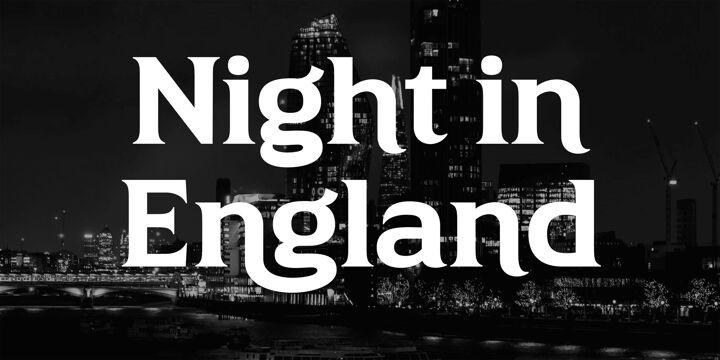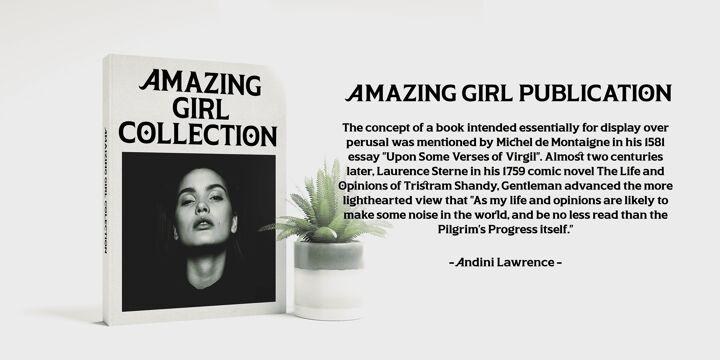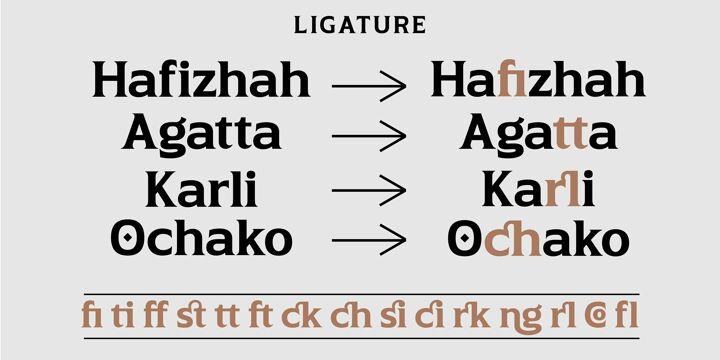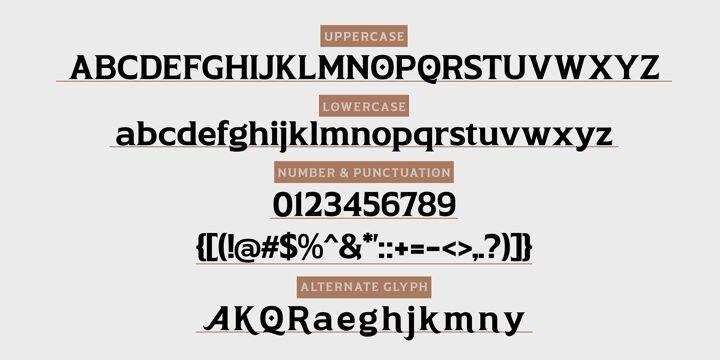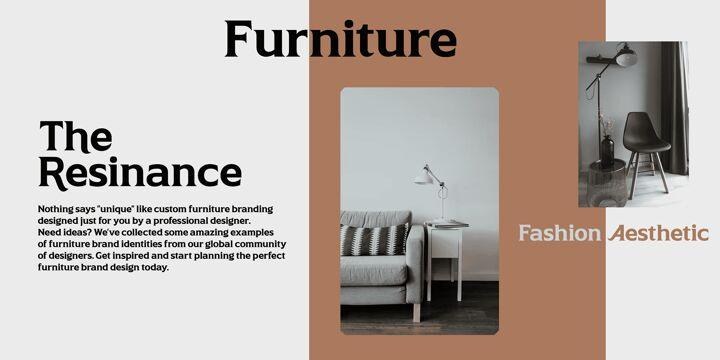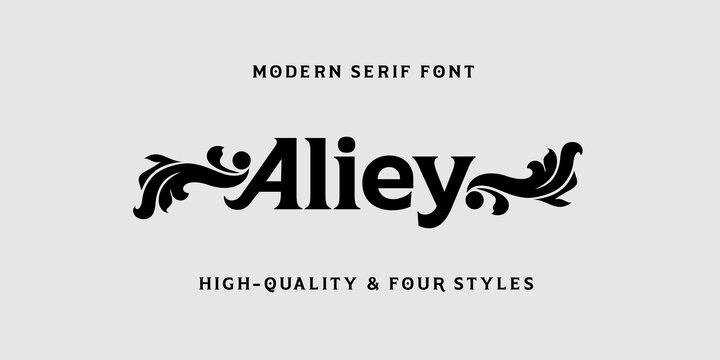
Aliey Font
Aliey is a classy, bold victorian typeface that looks incredible in both large and small settings. Best used as a display for headings and logos, Aliey’s straight lines, tense curves and sharp edges give any project an extra touch of class. This vintage serif font is stable and confident, and bring the thoughts to an age of gold and marble.
The Aliey family consists of four styles: The two weights Regular and Bold — and each one as Italic. The font is built with advanced OpenType functionality and has a guaranteed top-notch quality, containing stylistic and contextual alternates, ligatures and more features; all to give you full control and customizability. It has extensive lingual support, covering all Latin-based languages, from North Europe to South Africa, from America to South-East Asia. It contains all characters and symbols you’ll ever need, including all punctuation and numbers.
Aliey Font is a Font Family font that brings a professional and versatile look to your projects. Aliey is a classy, bold victorian typeface that looks incredible in both large and small settings.